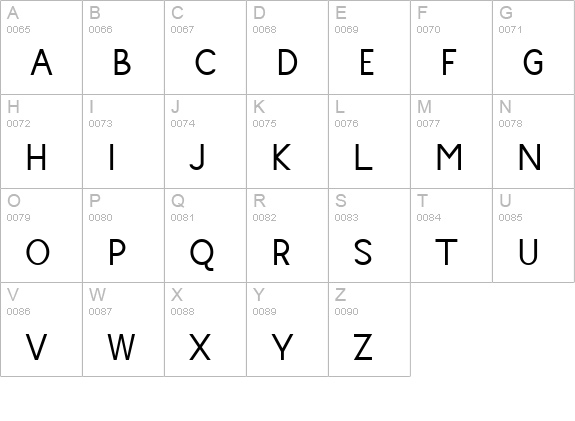
Midnight Font Details
Midnight font is a modern and stylish typeface that exudes sophistication and elegance. With its sleek lines and unique curves, this font is perfect for a wide range of design projects, from branding to editorial design. The Midnight font is versatile and can be used for both headings and body text, making it a great choice for any creative project. The best part? Midnight font is completely free to download at FontsMarket.com. This means you can add a touch of class to your designs without breaking the bank. Whether you're working on a website, poster, or logo, Midnight font will elevate your design and leave a lasting impression on your audience. Download it today and take your designs to the next level with Midnight font.